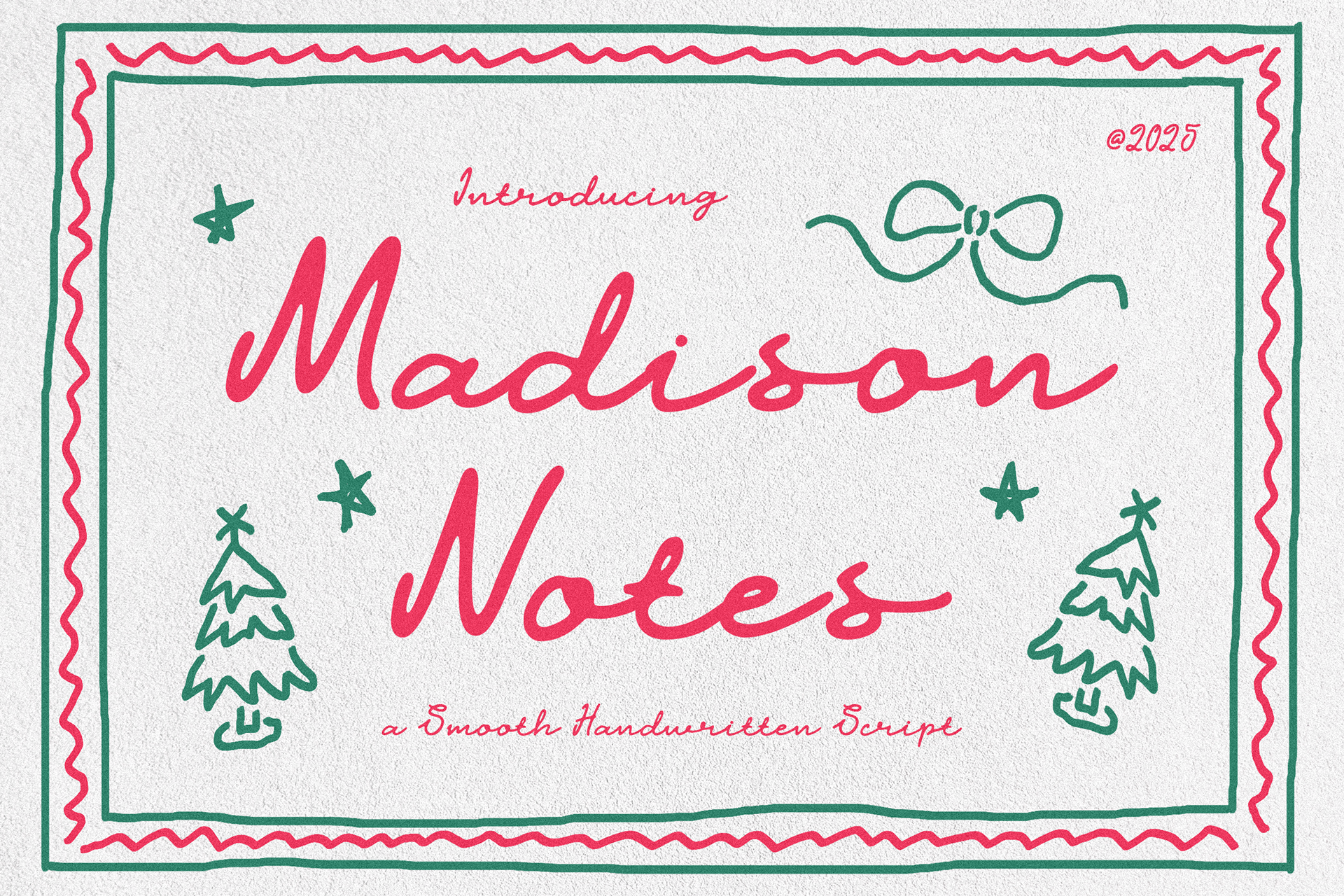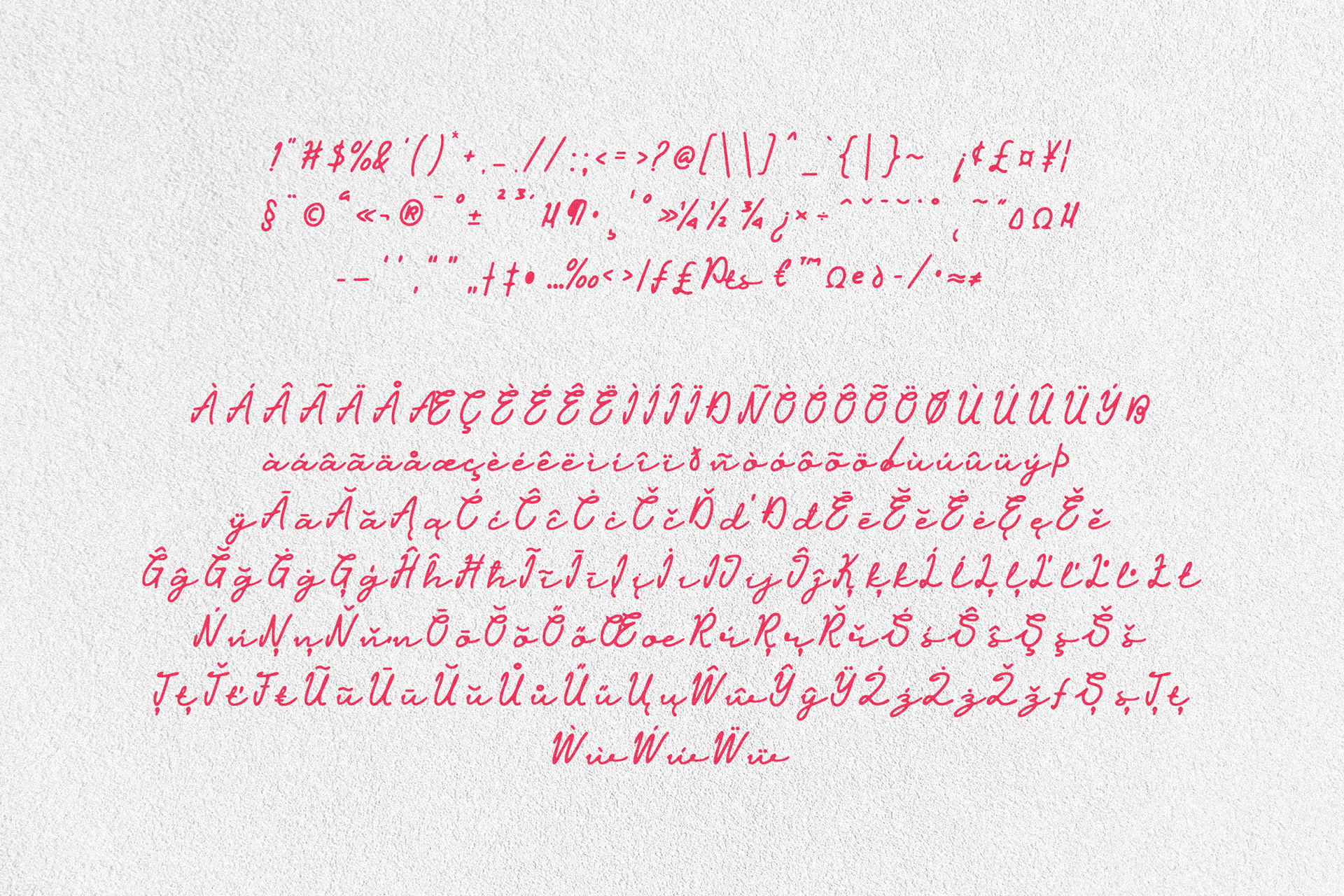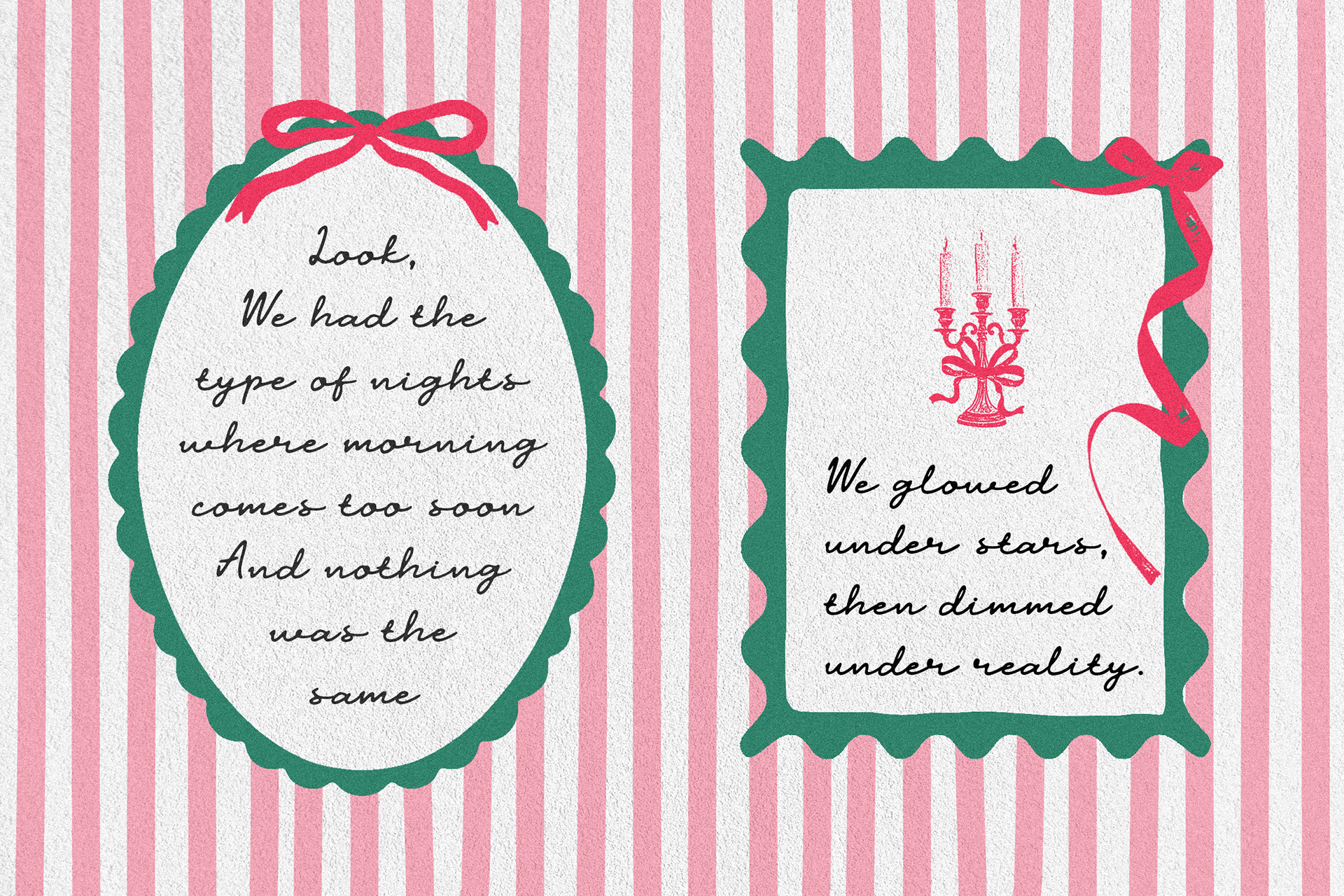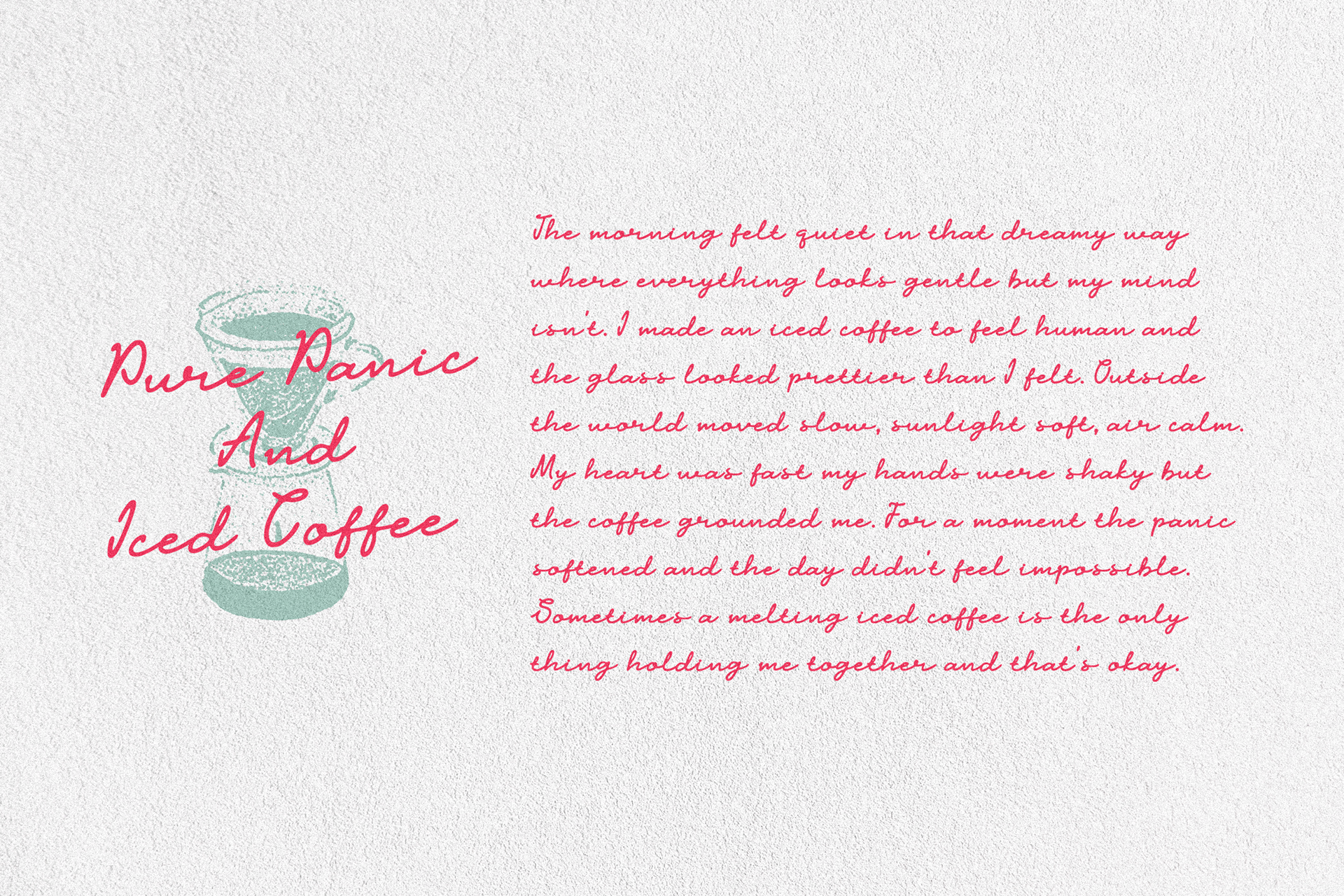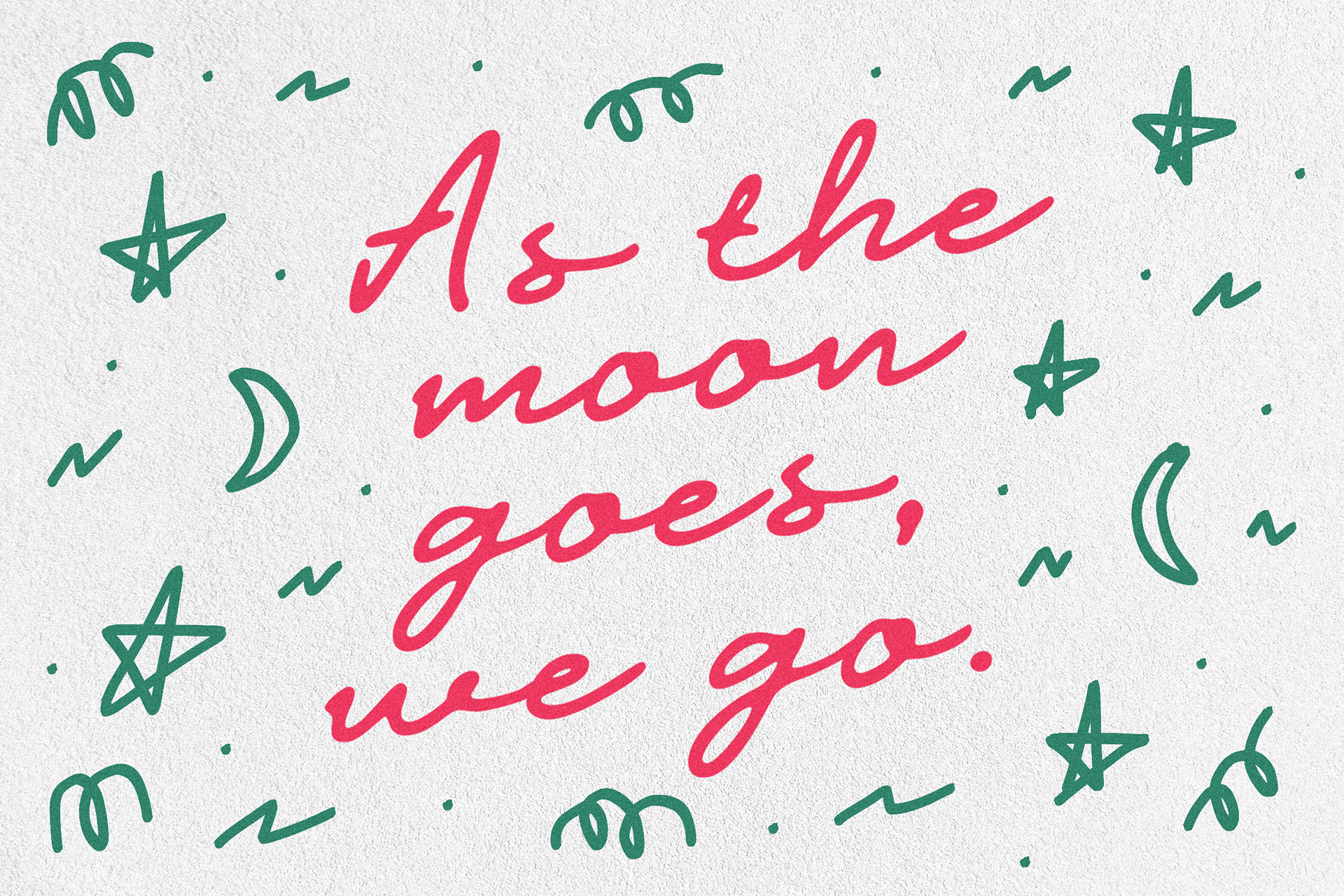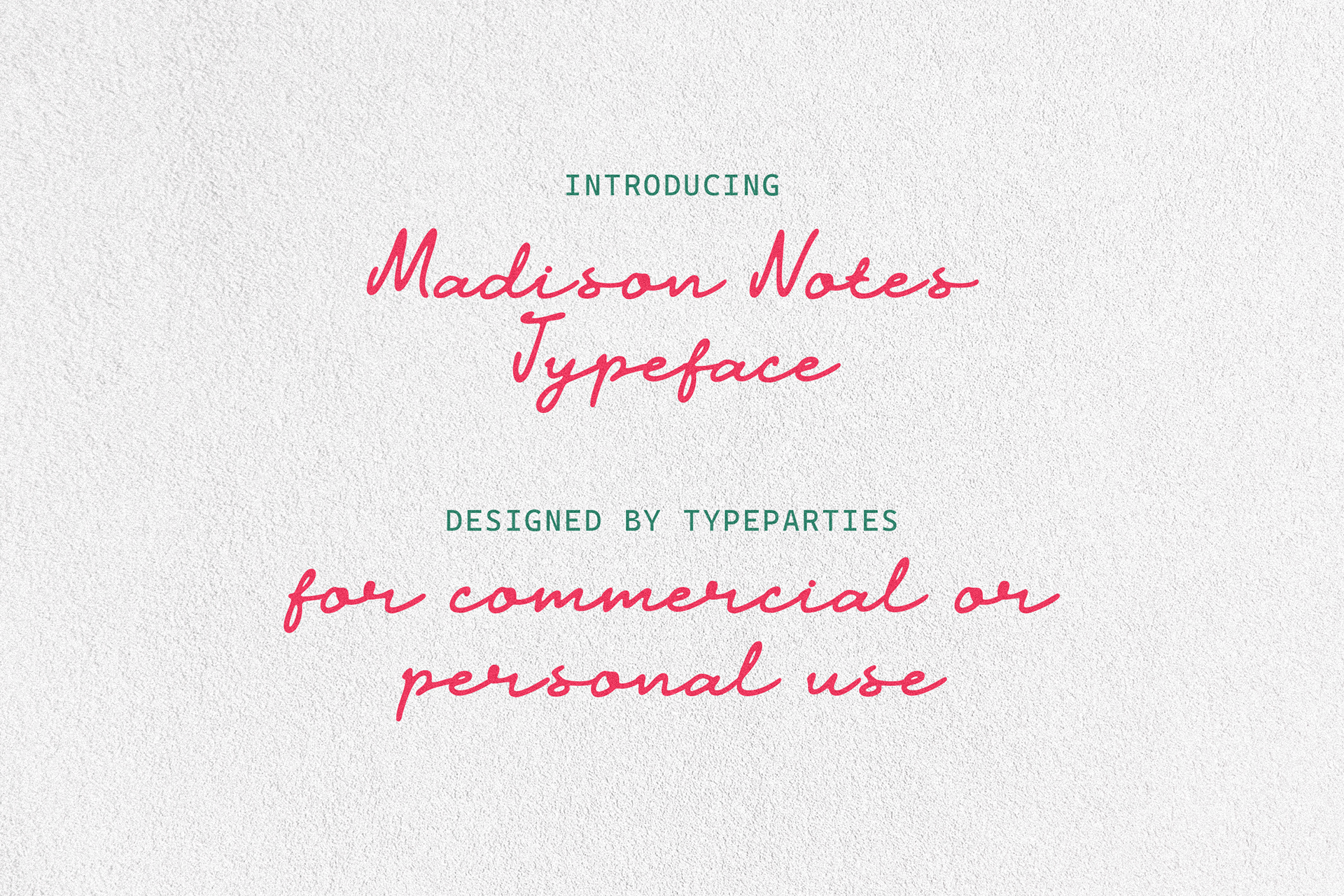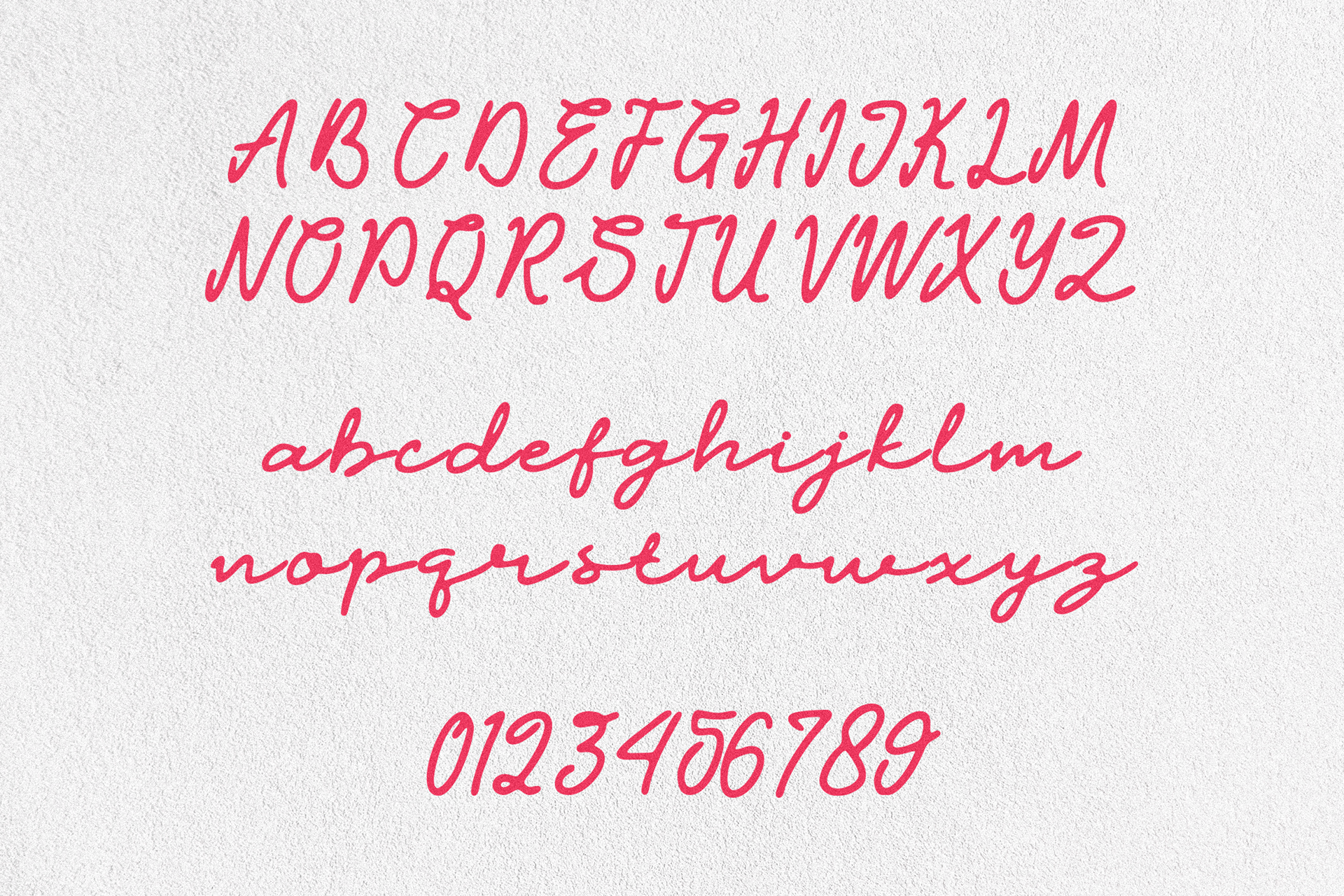
ATP Madison Notes
This font brings a warm handwritten vibe with soft curves and an easy flow that feels like notes written in a calm moment. It has a friendly, personal mood while still looking polished enough for branding. Perfect for creators who want something human, nostalgic, and a little artsy. It works great for lifestyle designs, journaling themes, aesthetic quotes, product labels, and any project that needs a gentle personal touch.